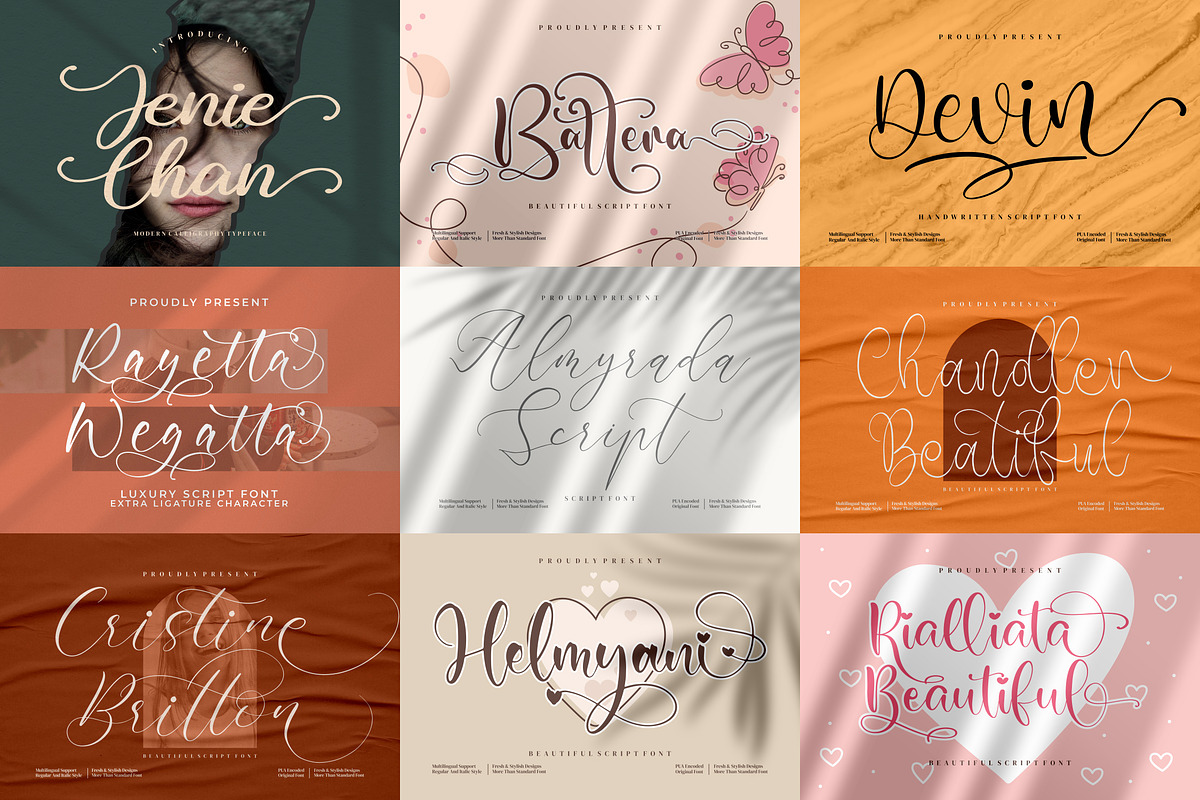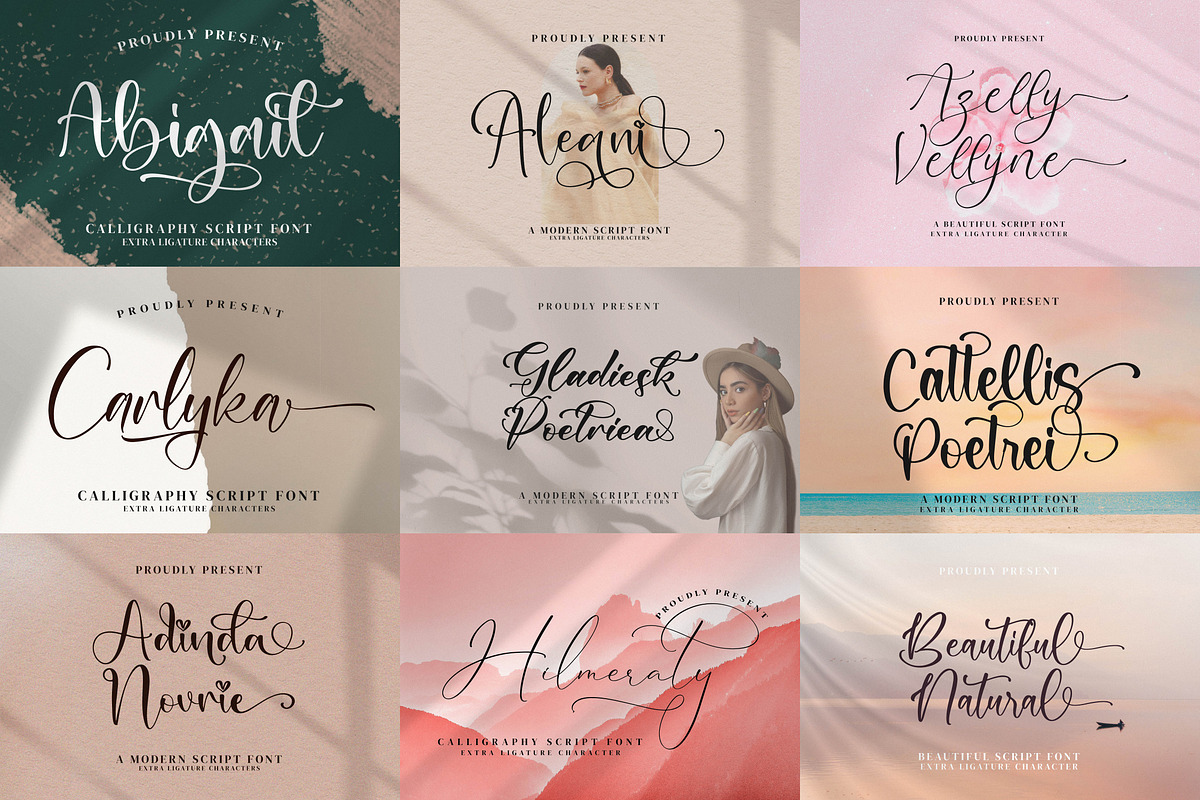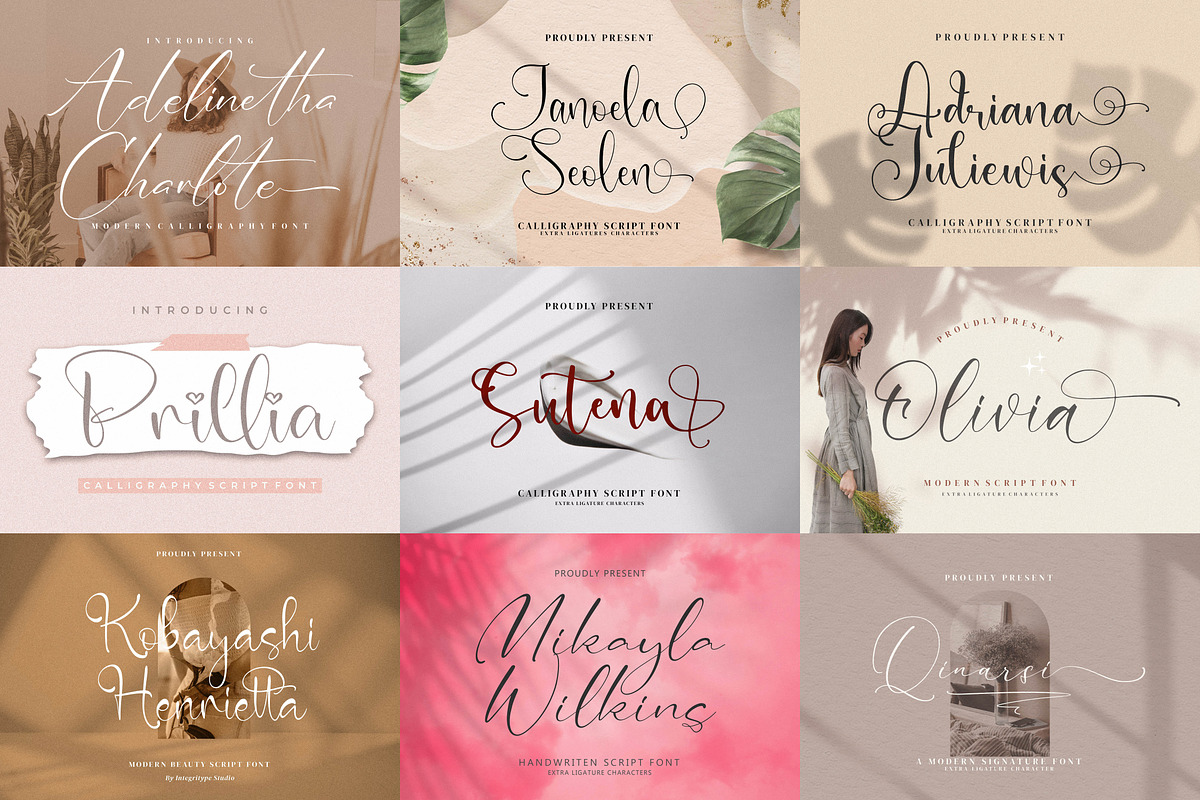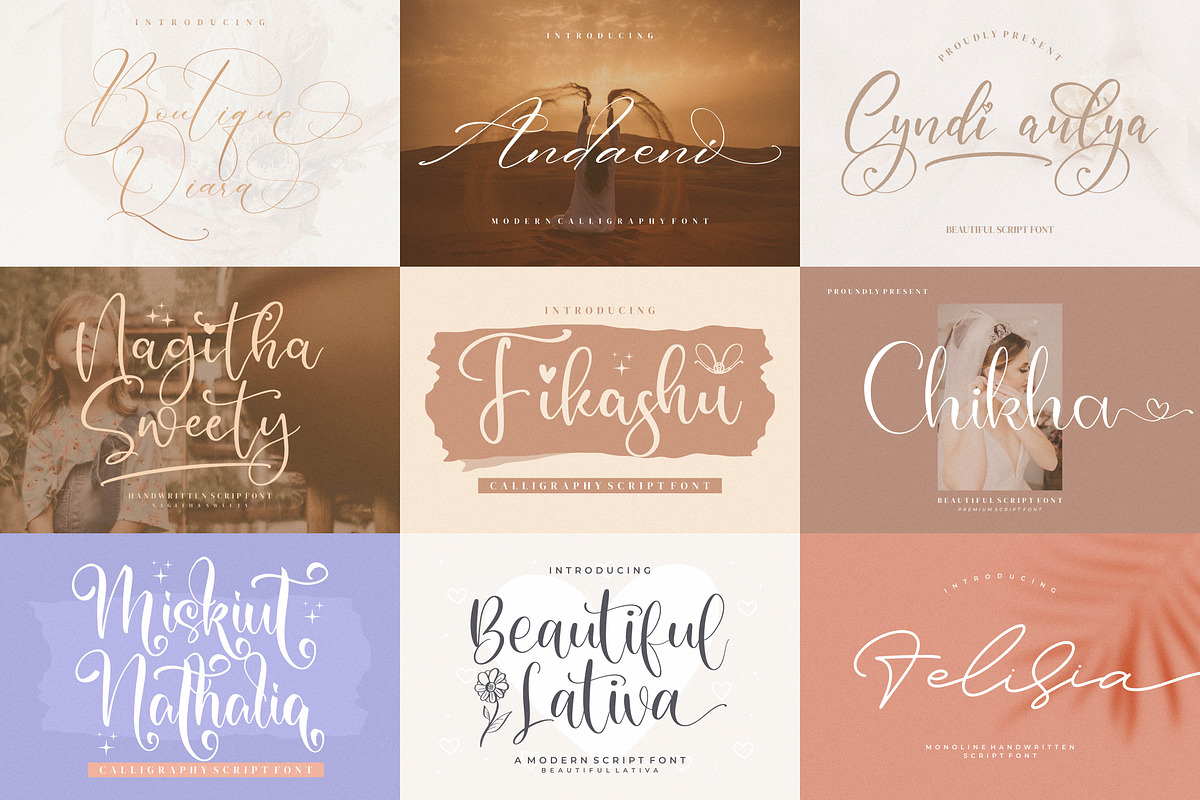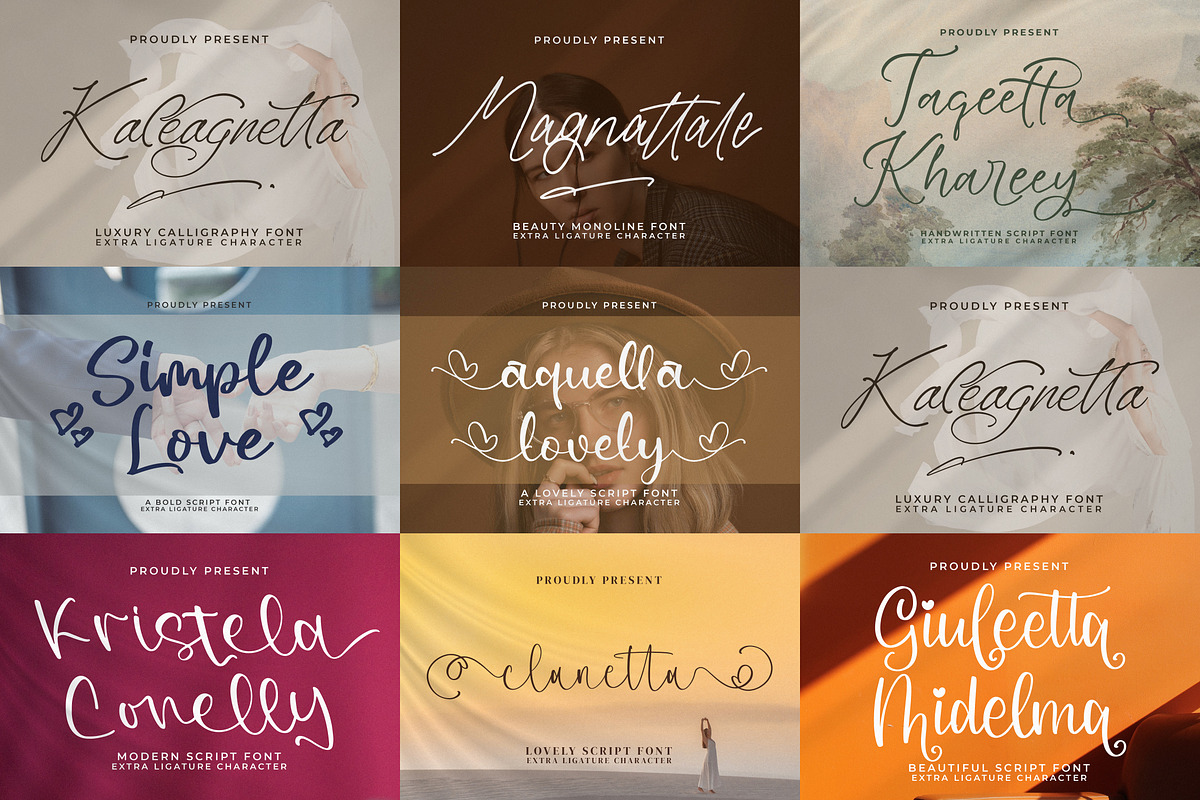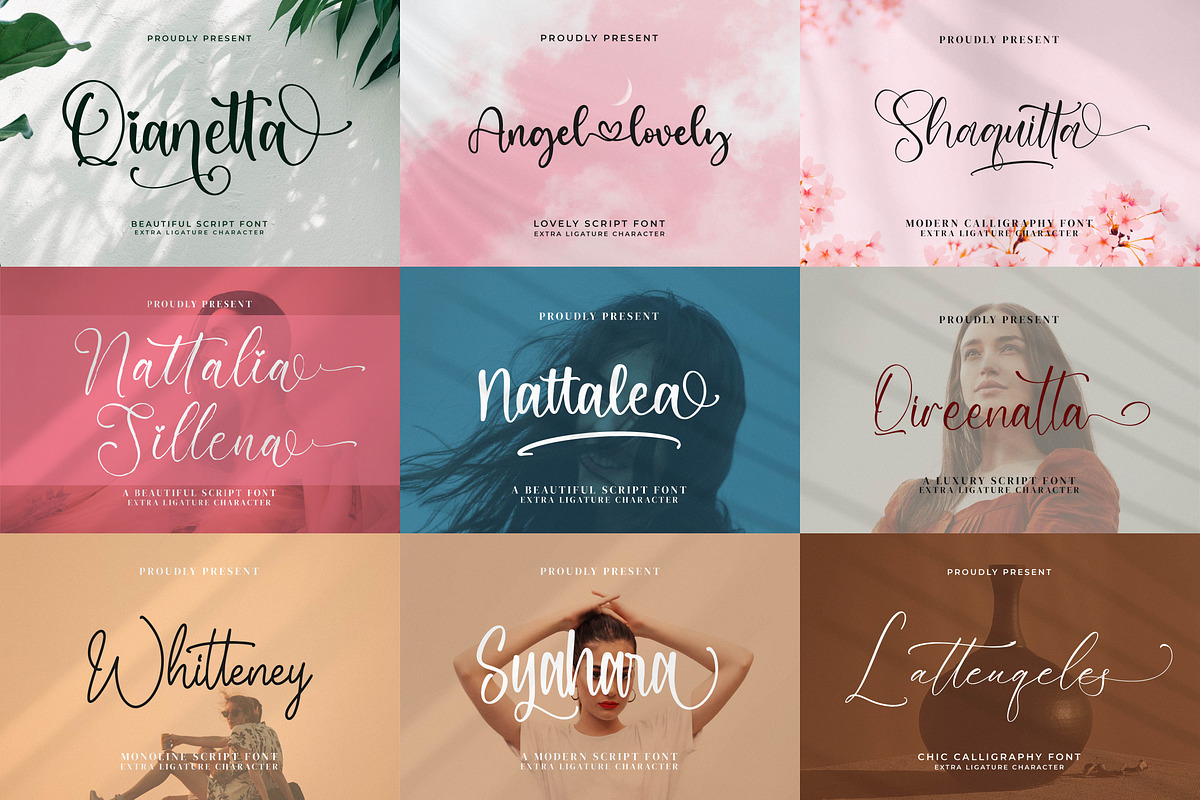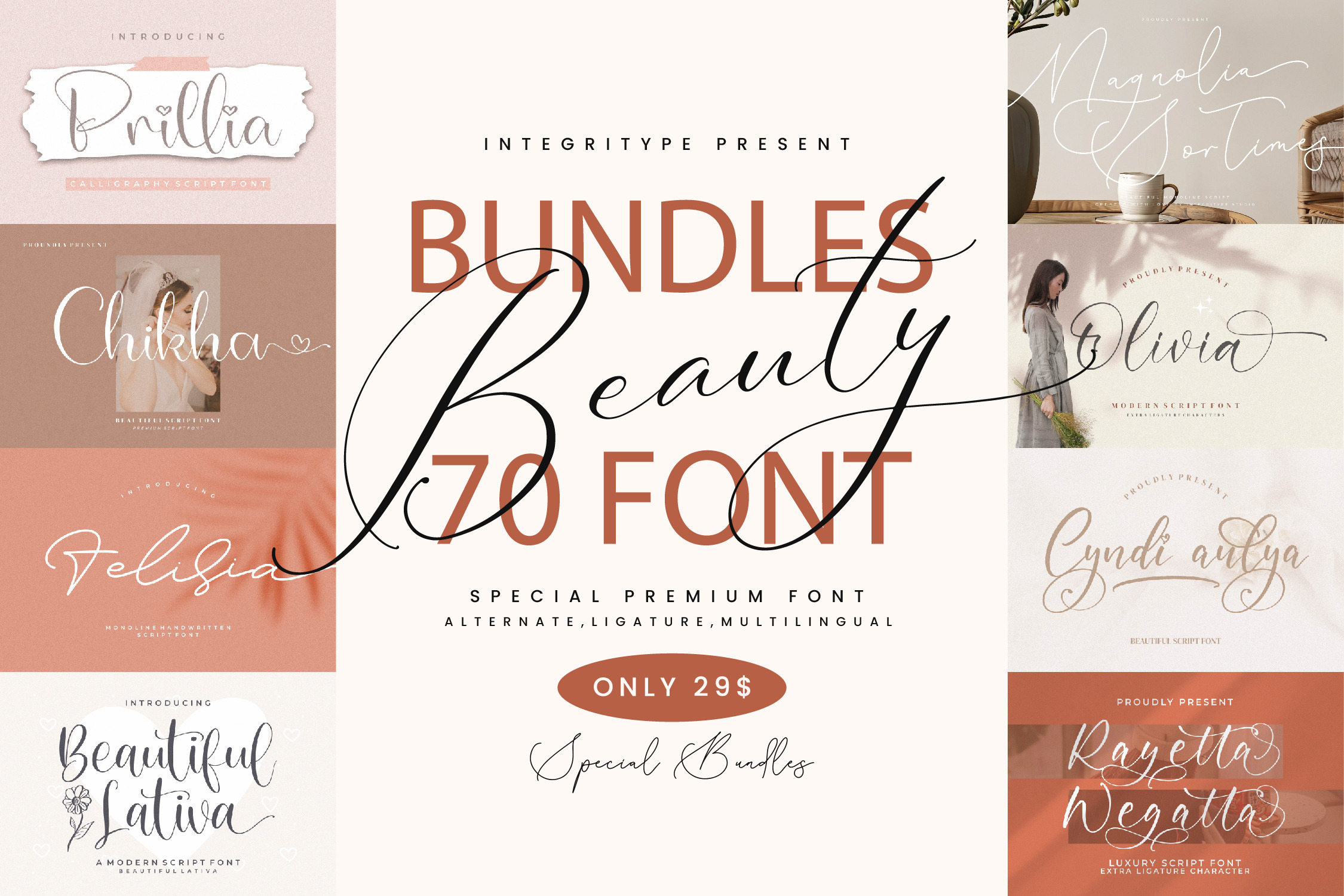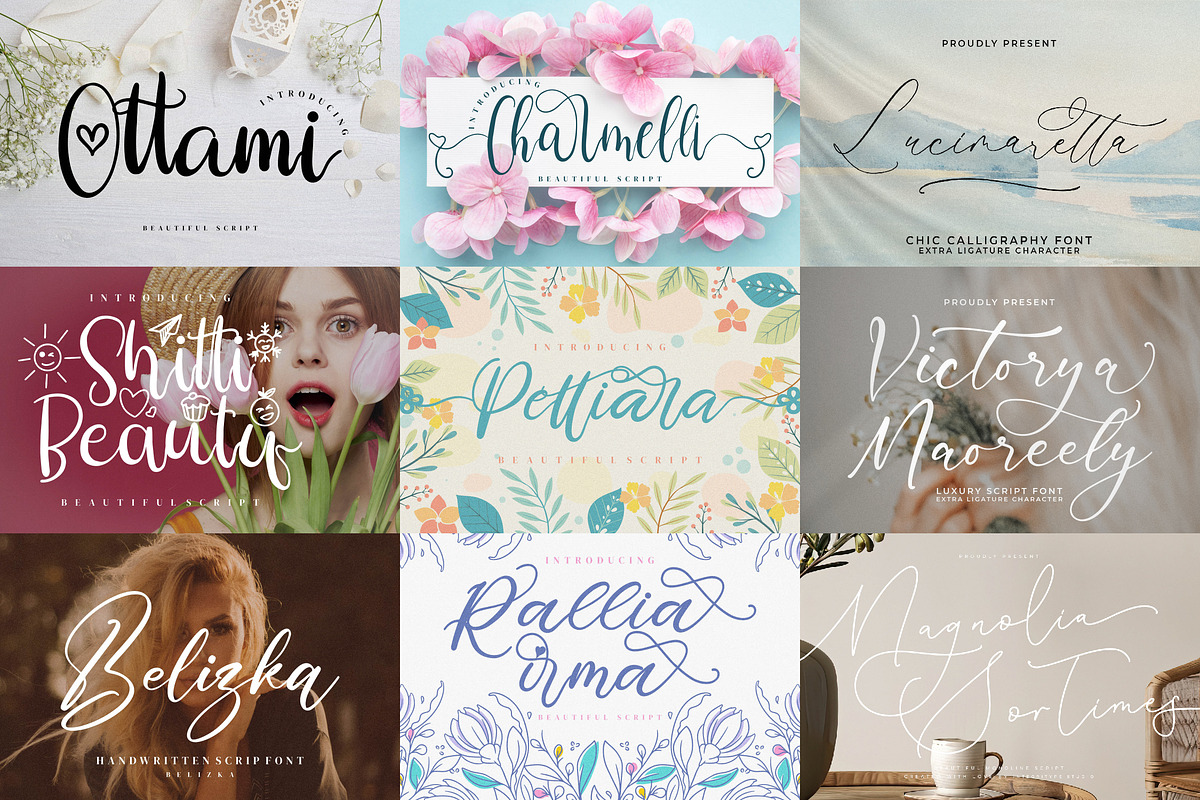
Beautiful and Lovely Font Bundles
Elevate your designs with our exclusive Font Bundle, featuring a versatile collection of high-quality fonts tailored for every creative need. Whether you're crafting logos, invitations, social media graphics, or branding materials, these fonts are designed to bring sophistication and uniqueness to your projects.
Why Choose This Bundle? Diverse Styles: Includes elegant script, beautiful script and stylish calligraphy font. High-Quality Design: Each font is carefully crafted for clarity and aesthetics. Multi-Use License: Suitable for both personal and commercial projects. Easy to Use: Compatible with popular software like Adobe Illustrator, Photoshop, Canva, and more. What’s Inside? 70 beauty premium fonts Transform your creative vision into reality with this beautiful; and lovely Font Bundle. Grab it now and make your designs unforgettable!